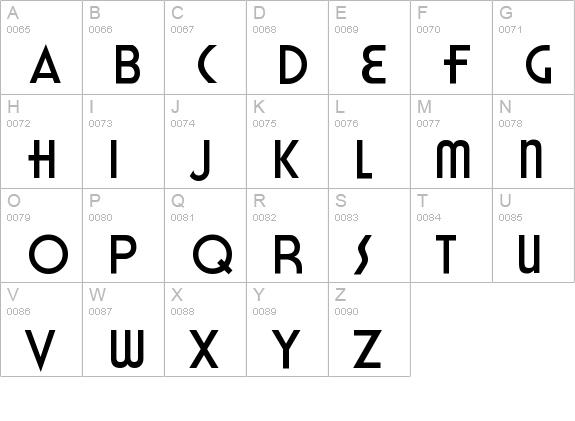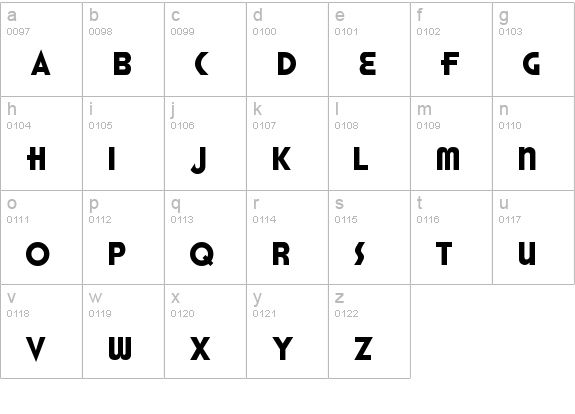
Honest John's Font Details
Introducing Honest John's font - a classic and versatile typeface that exudes elegance and charm. With its clean lines and timeless appeal, this font is perfect for a wide range of design projects, from branding to editorial design. The sleek and modern look of Honest John's font adds a touch of sophistication to any project, making it a must-have for designers looking to make a statement. The best part? Honest John's font is completely free to download at FontsMarket.com. Yes, you read that right - you can get your hands on this stunning font without having to spend a dime. So why wait? Download Honest John's font today and elevate your designs with its effortless style and flair.